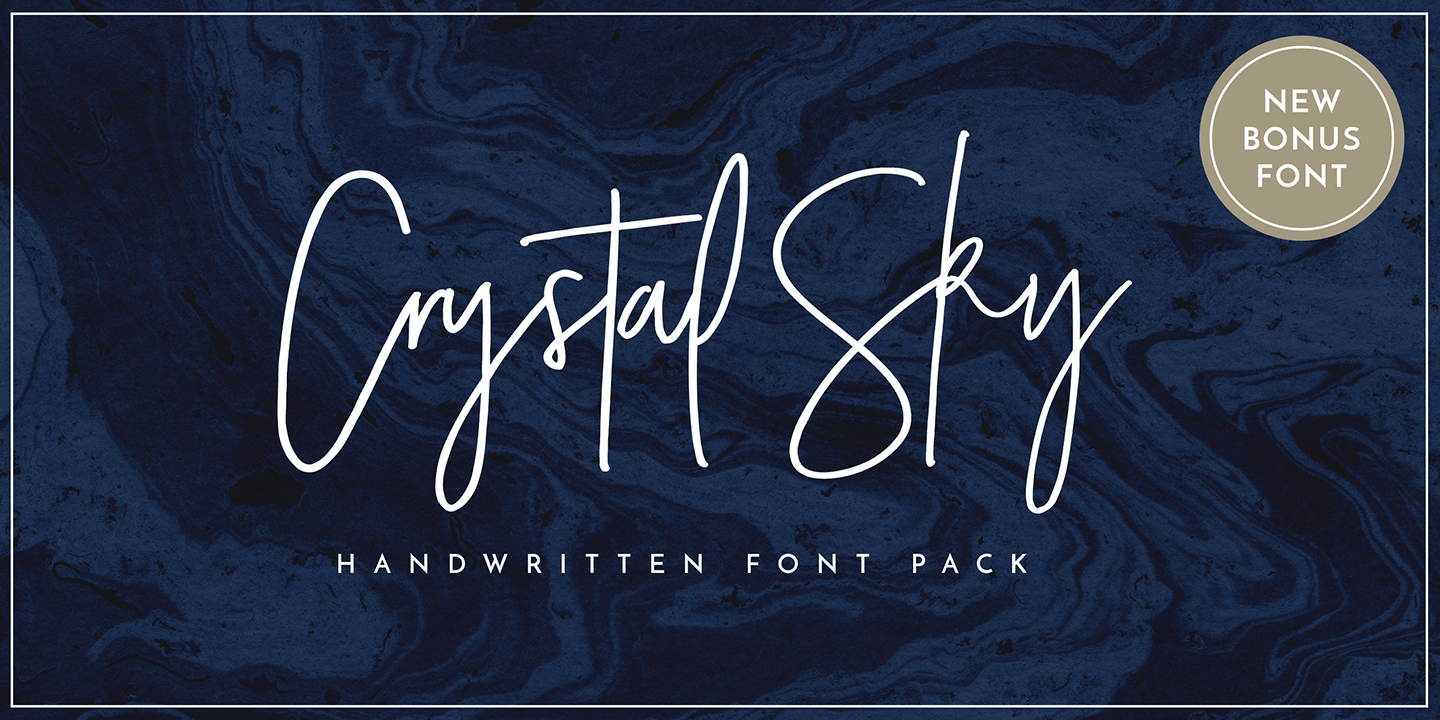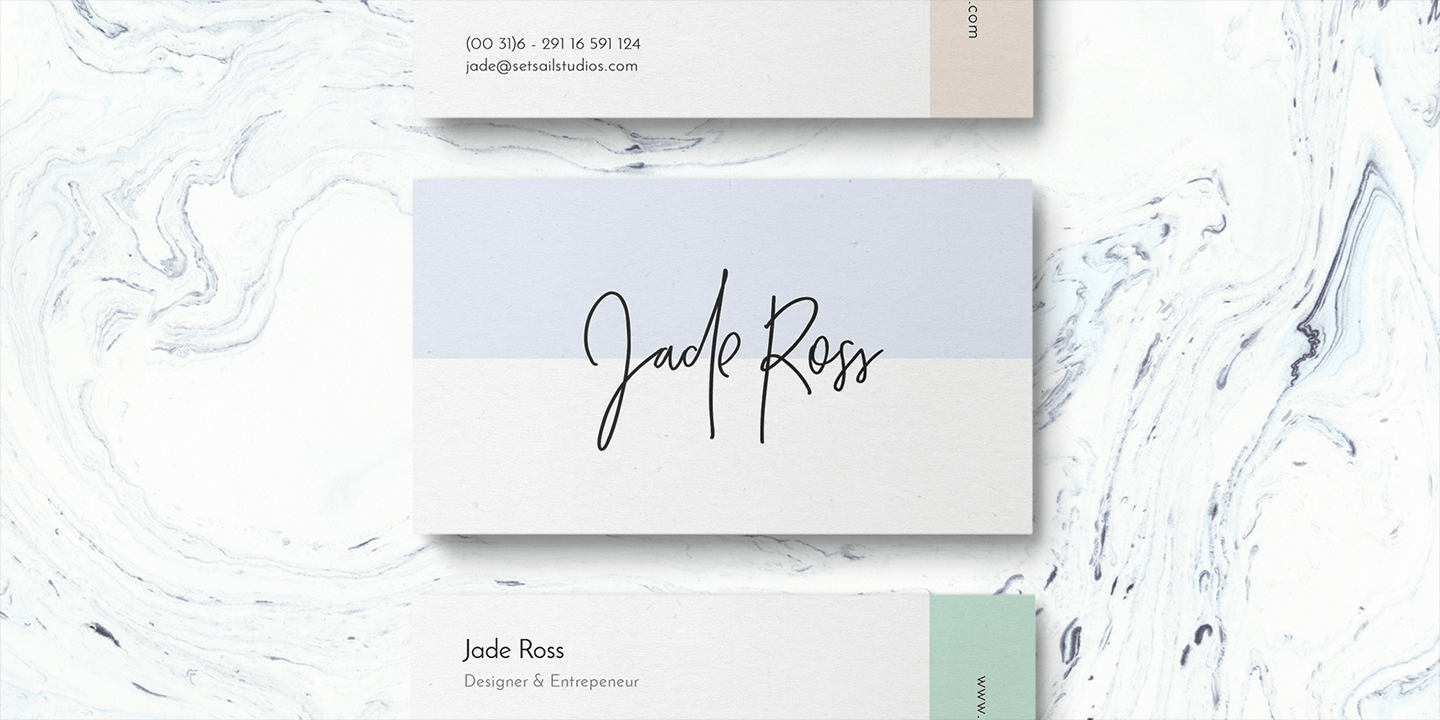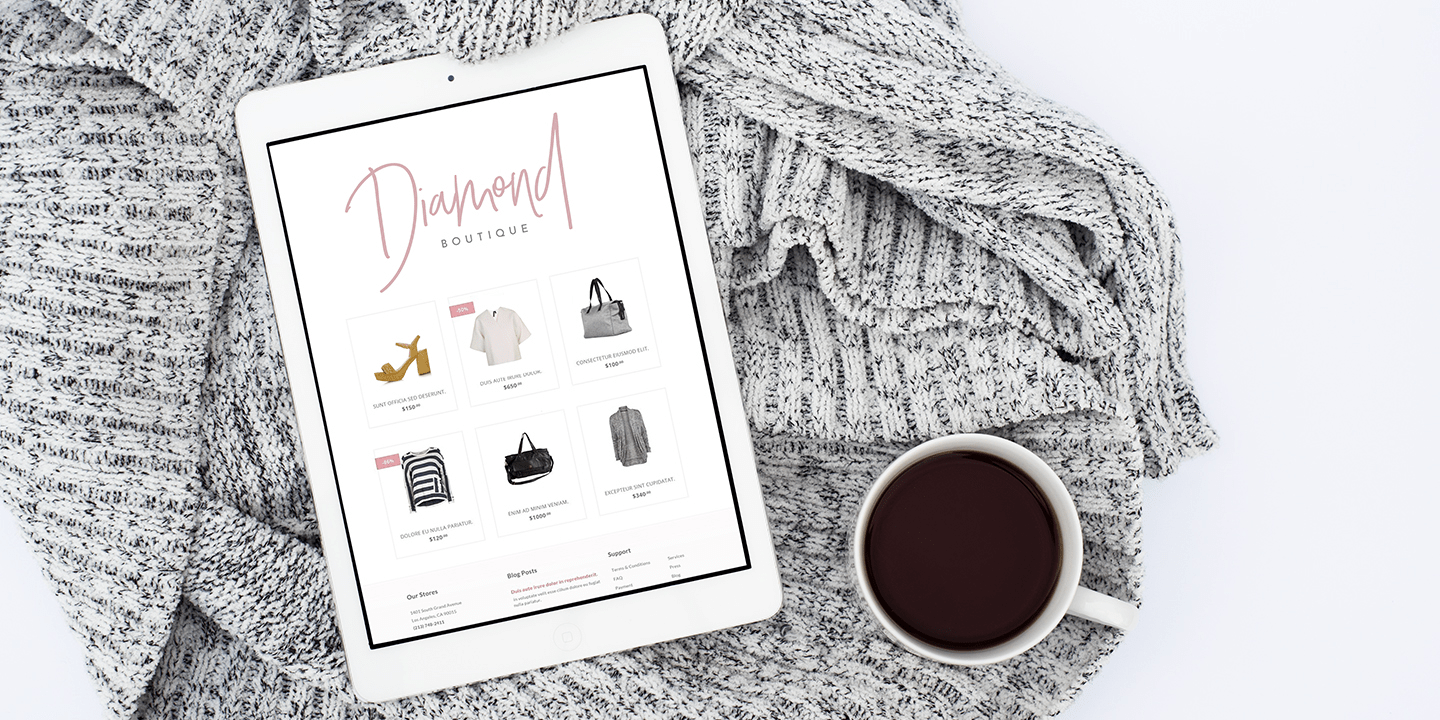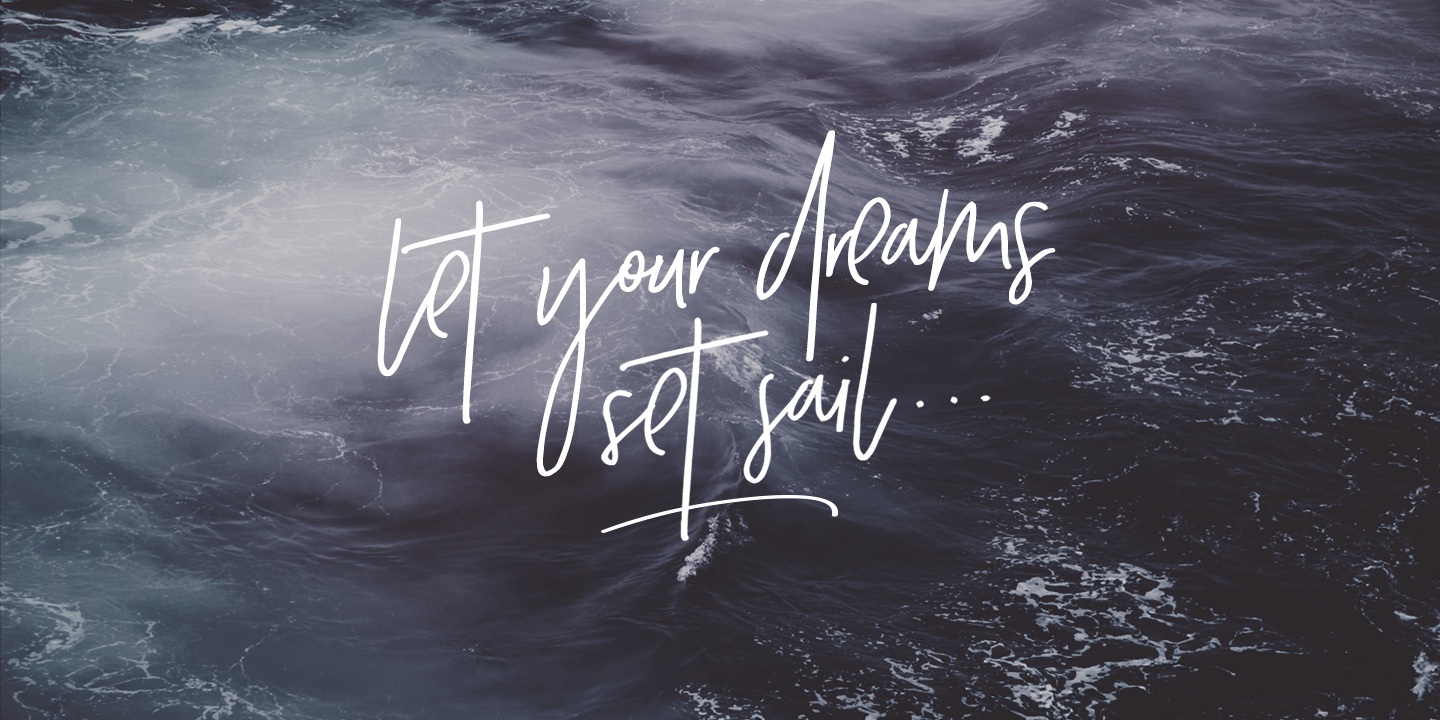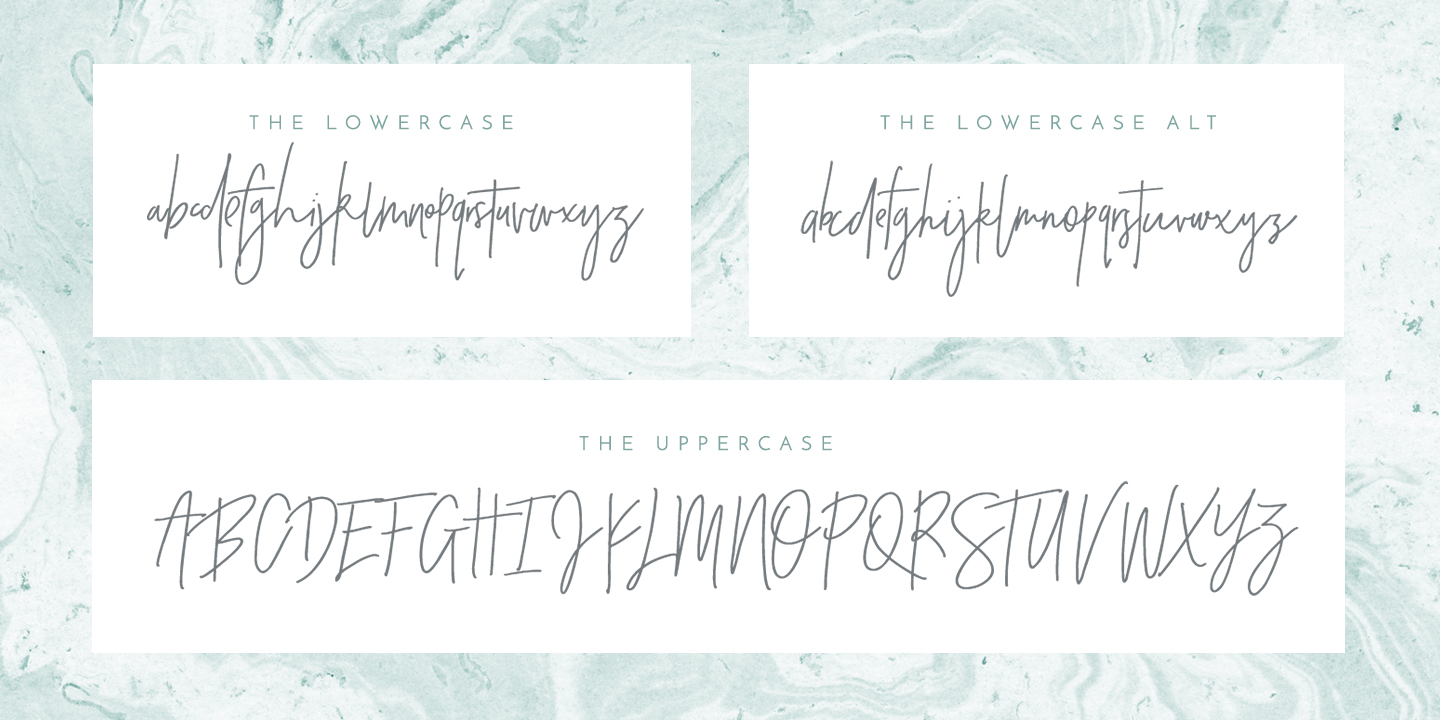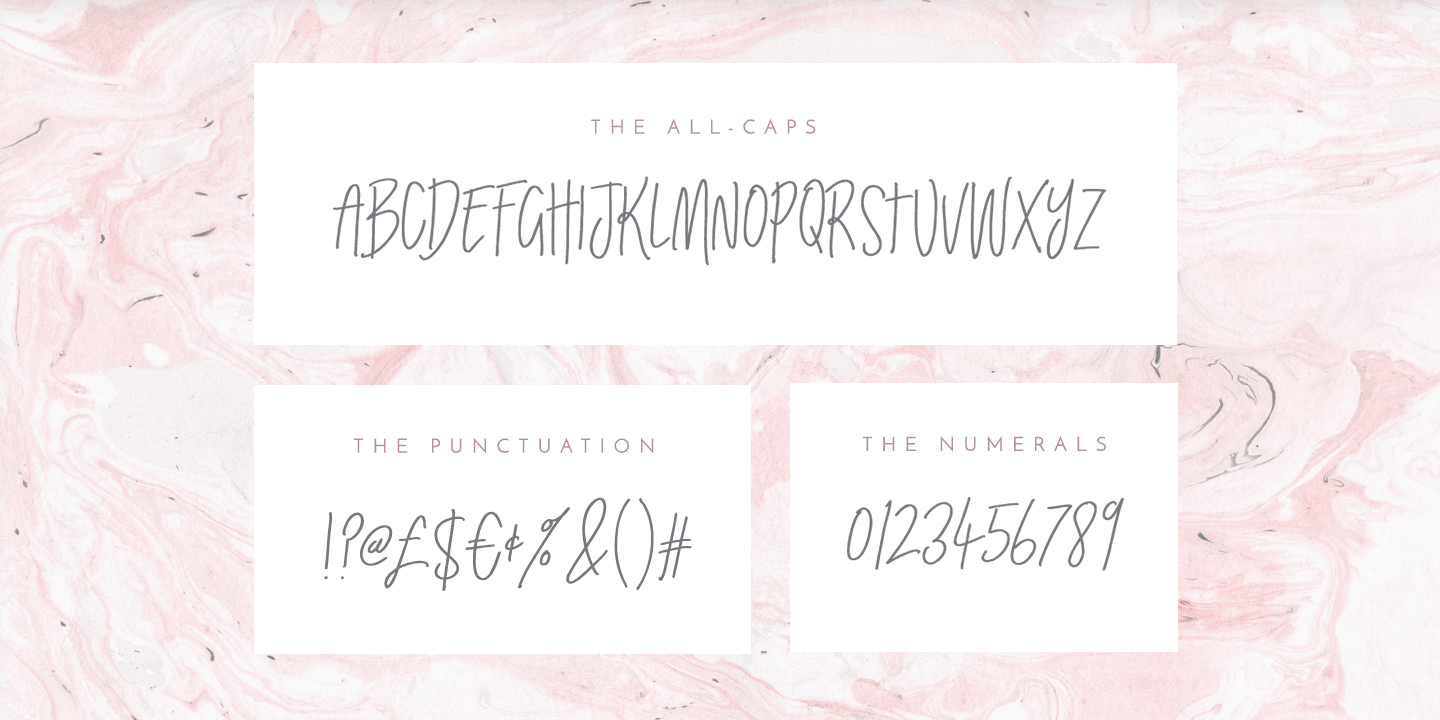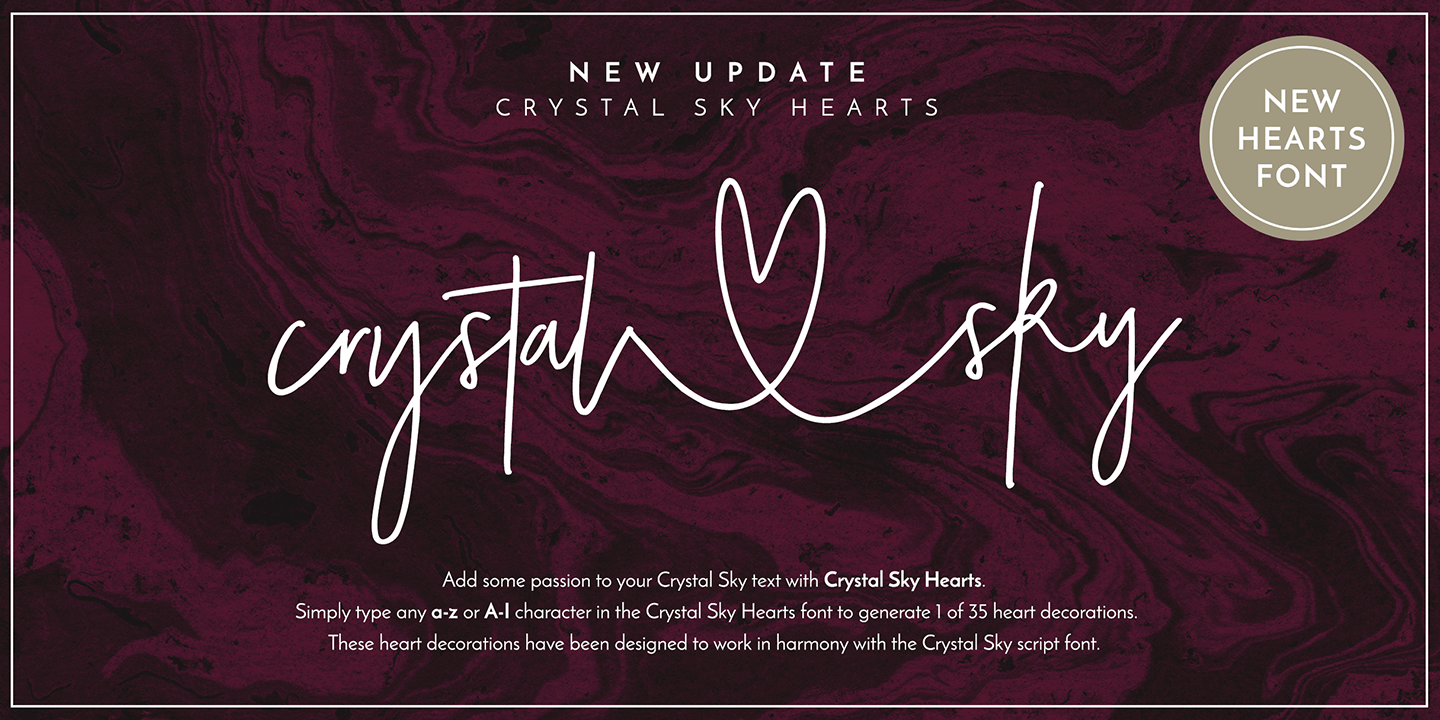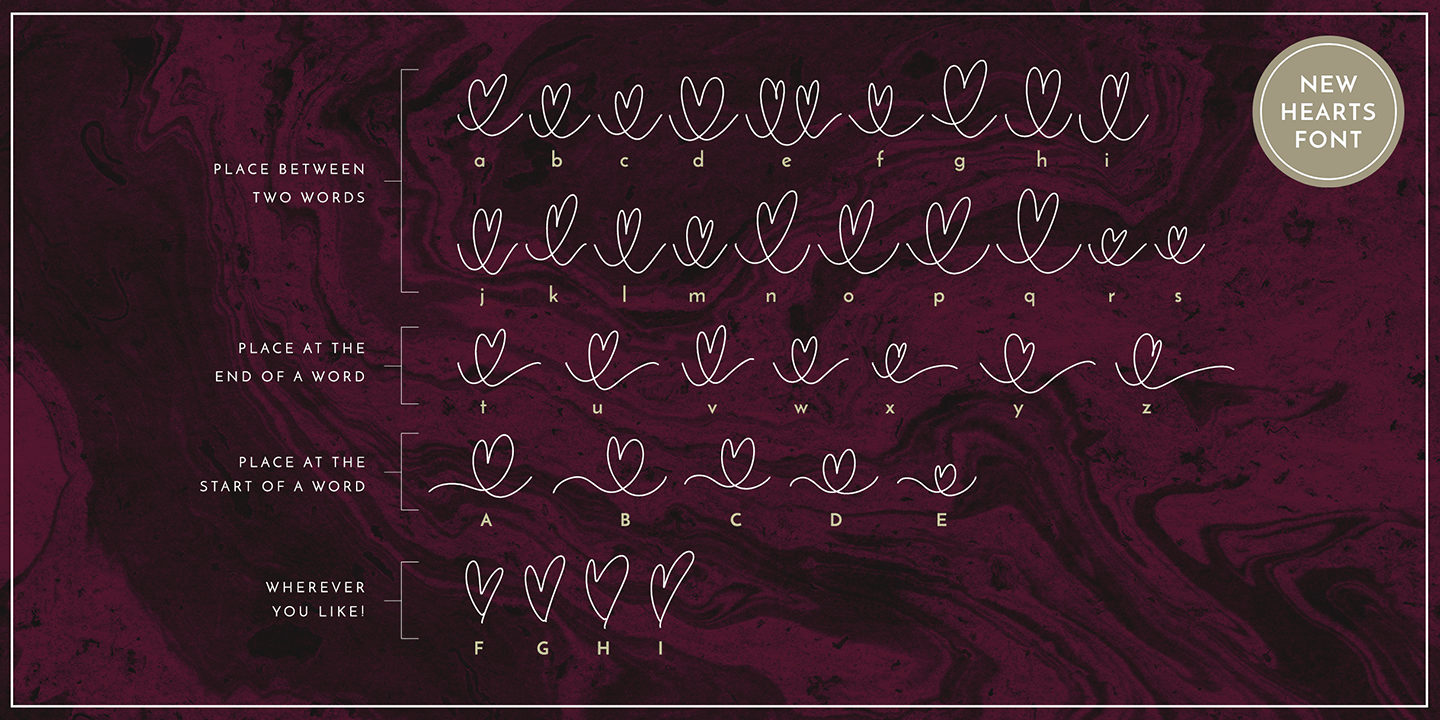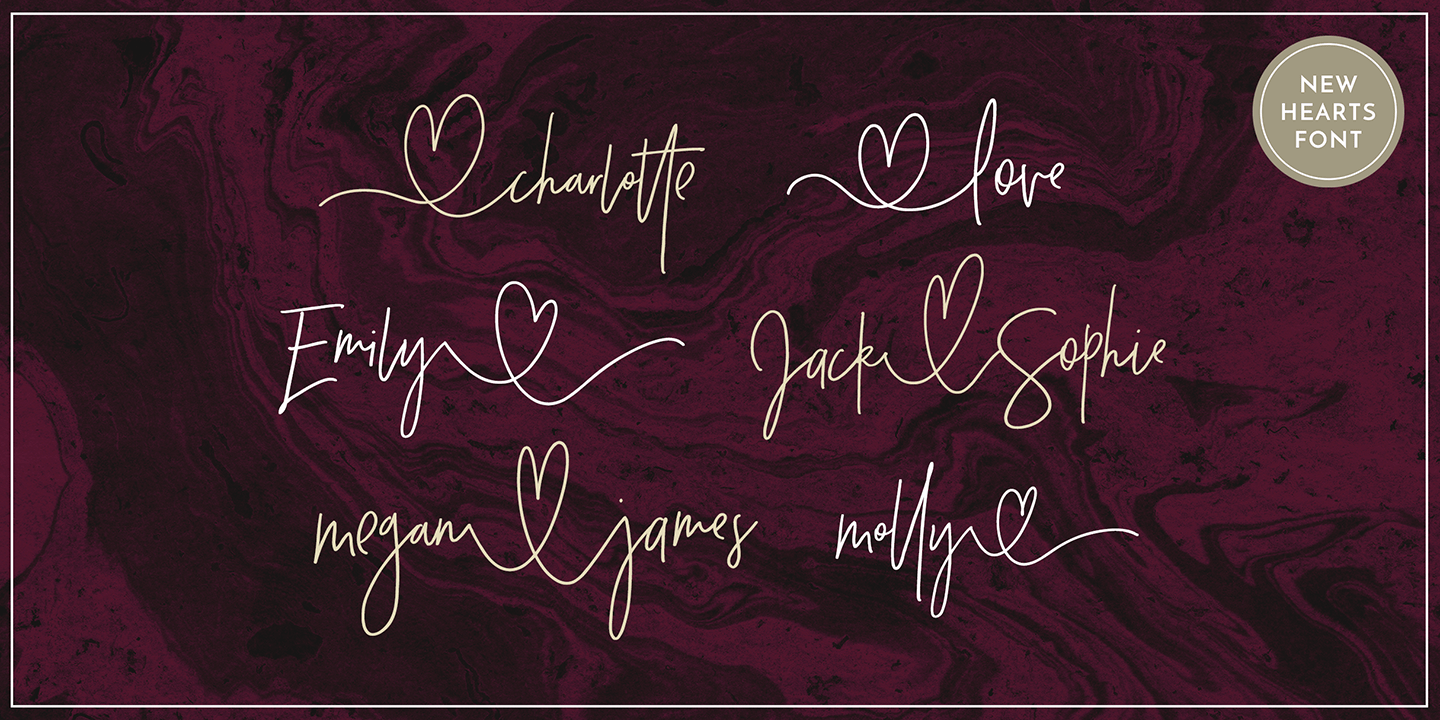
Crystal Sky
Add a little sparkle to your designs with Crystal Sky! A clean & modern signature-style font set, perfect for creating authentic hand-lettered text quickly & easily.
With exaggerated strokes and an extra bouncy baseline, Crystal Sky has an unmistakable charm; perfect for logos, wedding stationery, cards, gift designs, product packaging and handwritten quotes.
★ New Update • Crystal Sky Hearts! Add some passion to your Crystal Sky text with Crystal Sky Hearts, a new font included in your download! These bonus designs add a beautiful, flowing decorative heart at the beginning, middle & end of your Crystal Sky Script text at the click of a button.
Crystal Sky is packed full of great features to give you plenty of customisation options;
Crystal Sky Alt • This font includes an entire alternate lowercase glyph set. If you wanted to avoid letters looking the same each time to recreate a custom-made style, or try a different word shape, simply switch to this font for an additional layout option.
Crystal Sky Caps • Have you ever noticed that script fonts tend to be a bit tricky when it comes to typing in all-caps? 'Crystal Sky Caps' includes a totally separate set of A-Z letters - designed to work in harmony with each other during those moments when you need to hit your caps-lock button and go a bit wild!
★ New! Crystal Sky Hearts • Simply install this as its own separate font, and type any a-z or A-I character in this font to generate 1 of 35 heart decorations, designed to pair beautifully with the Crystal Sky Script font. (Please see the image above for a use guide).